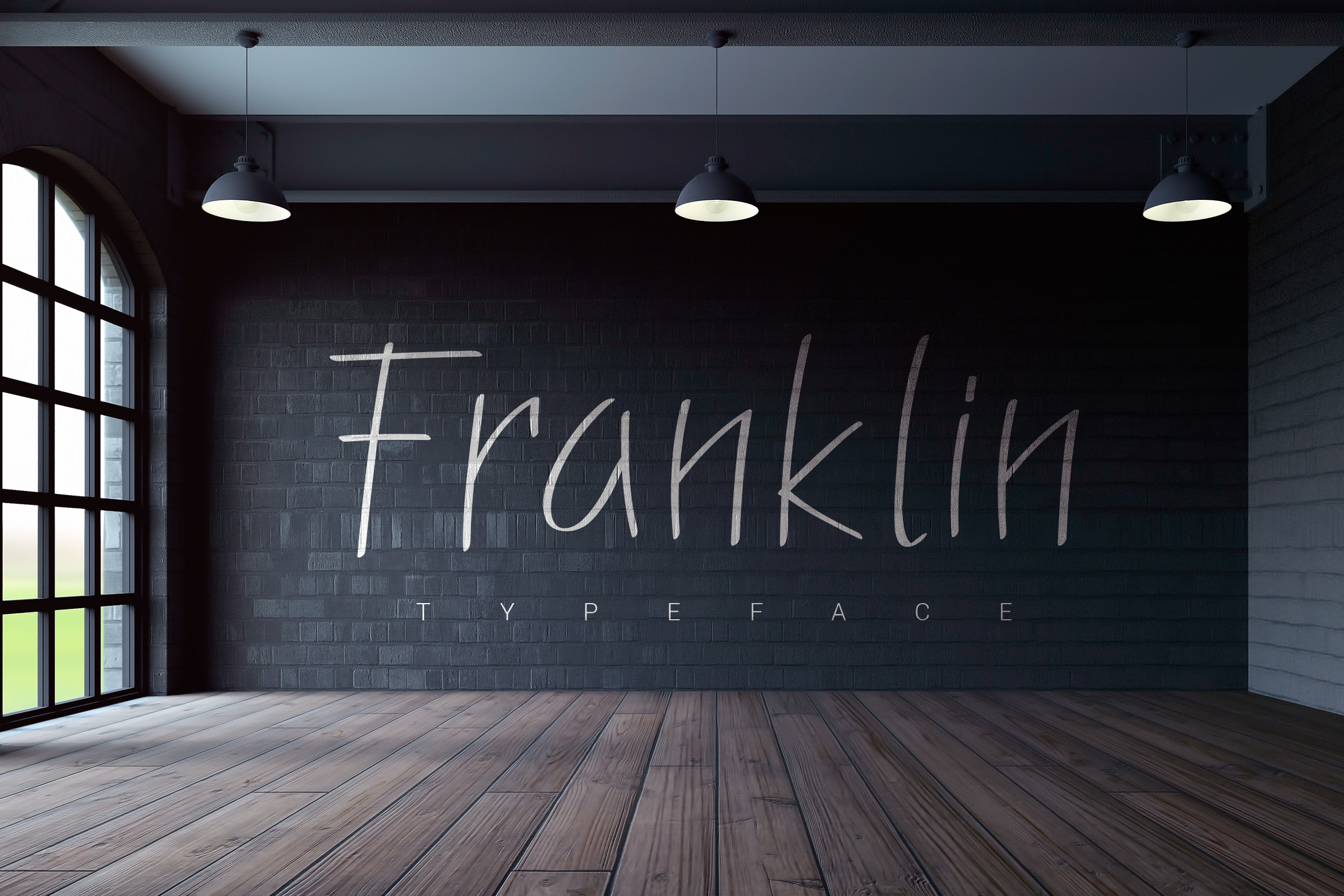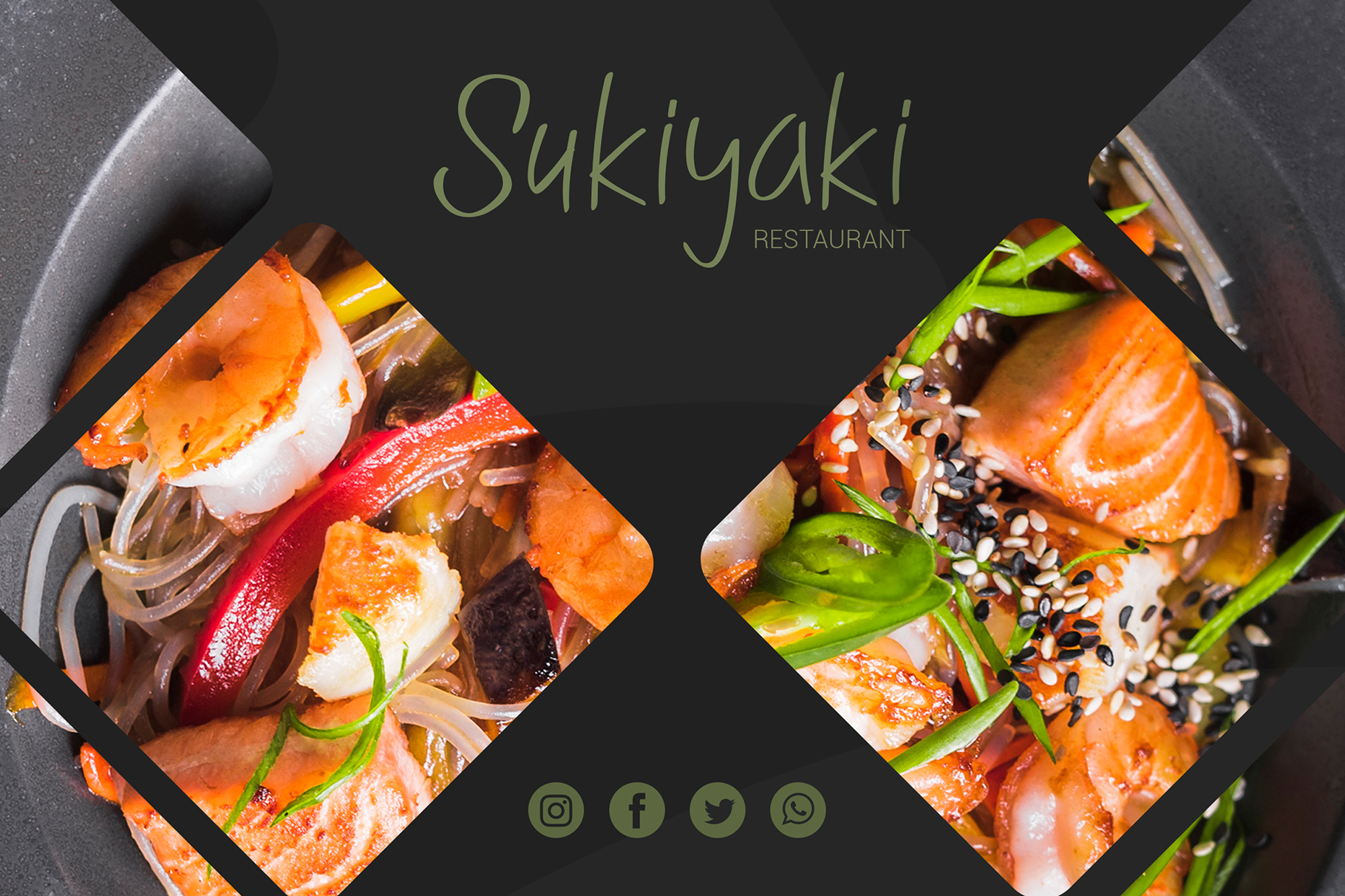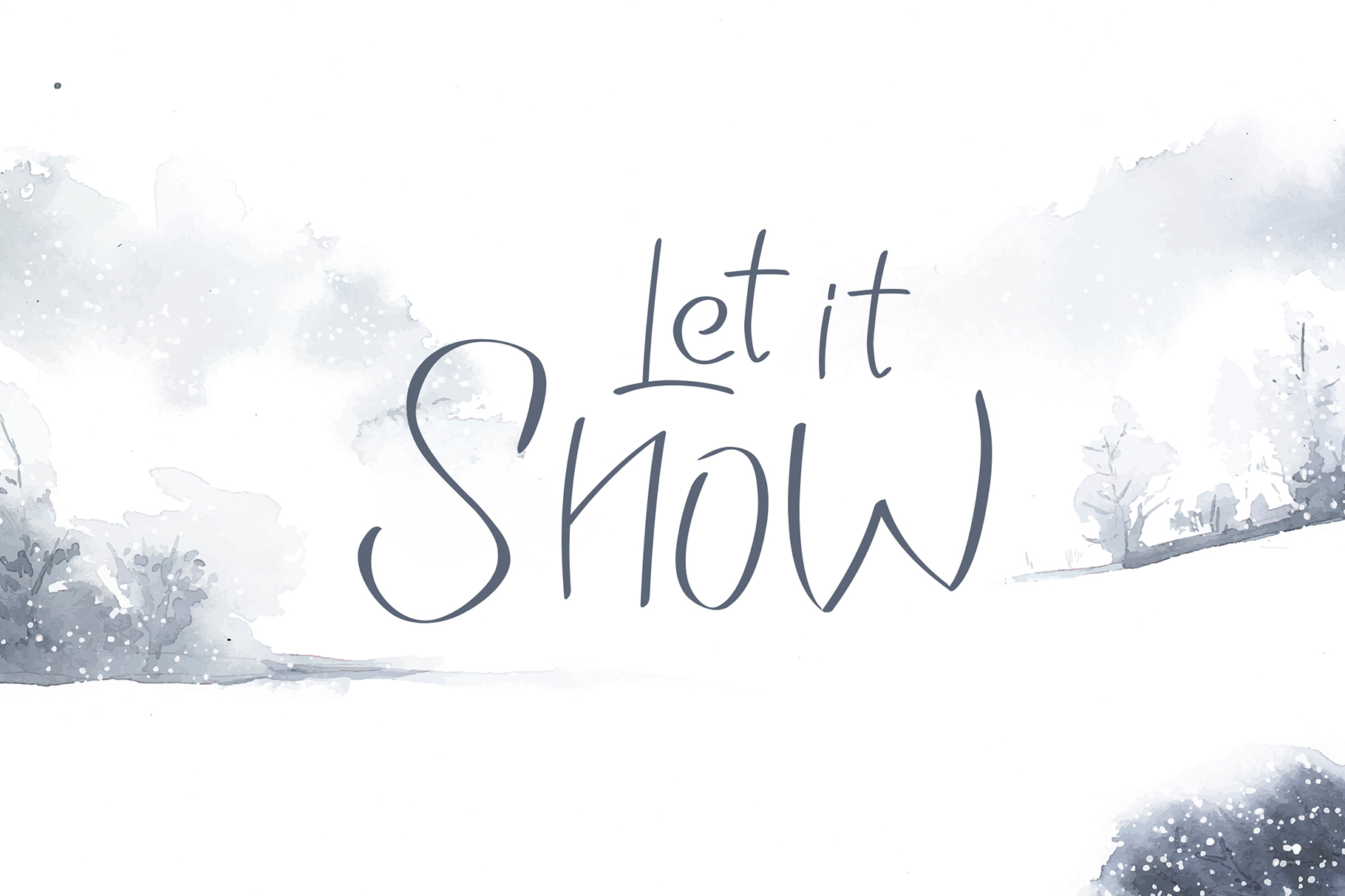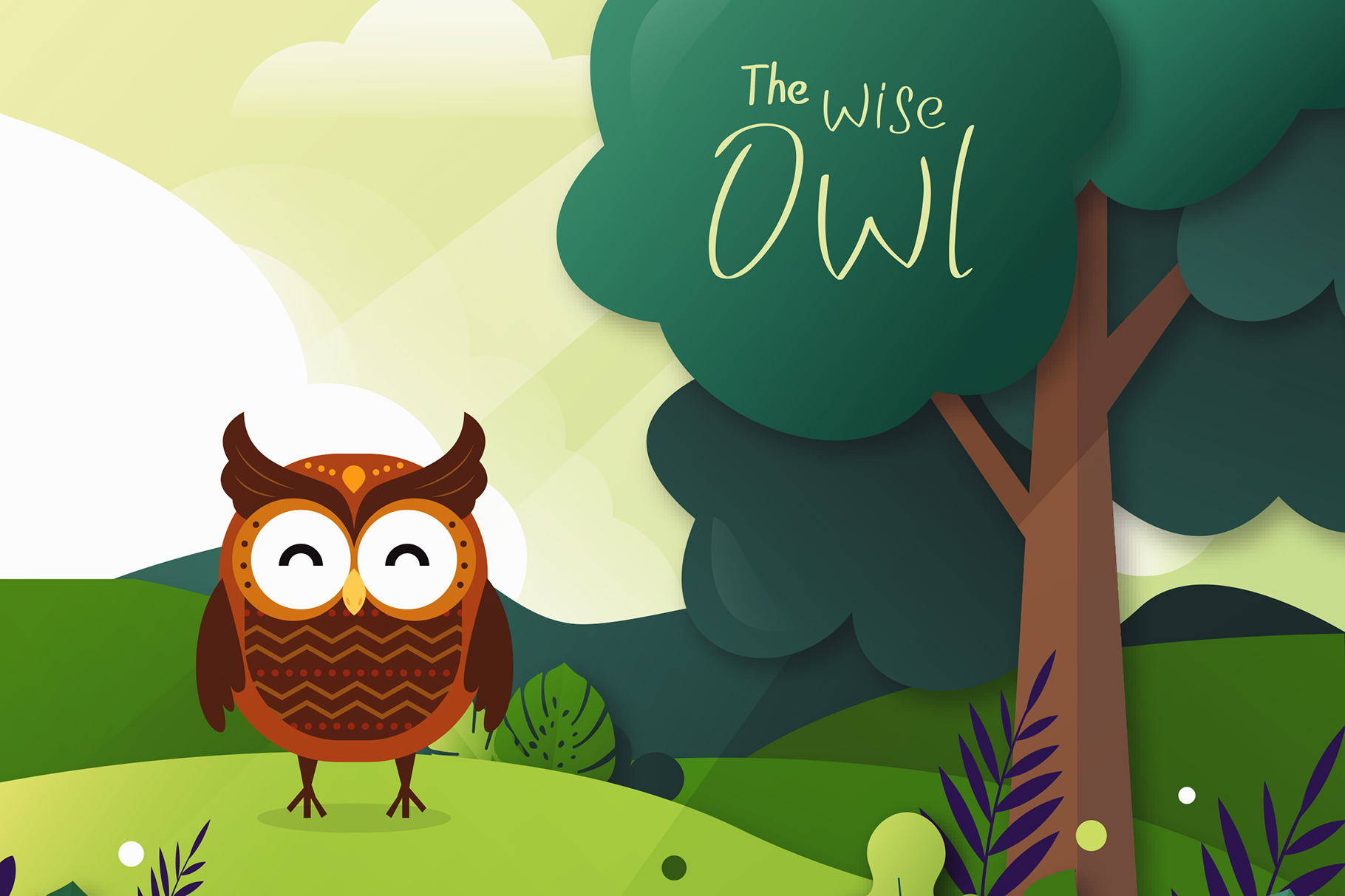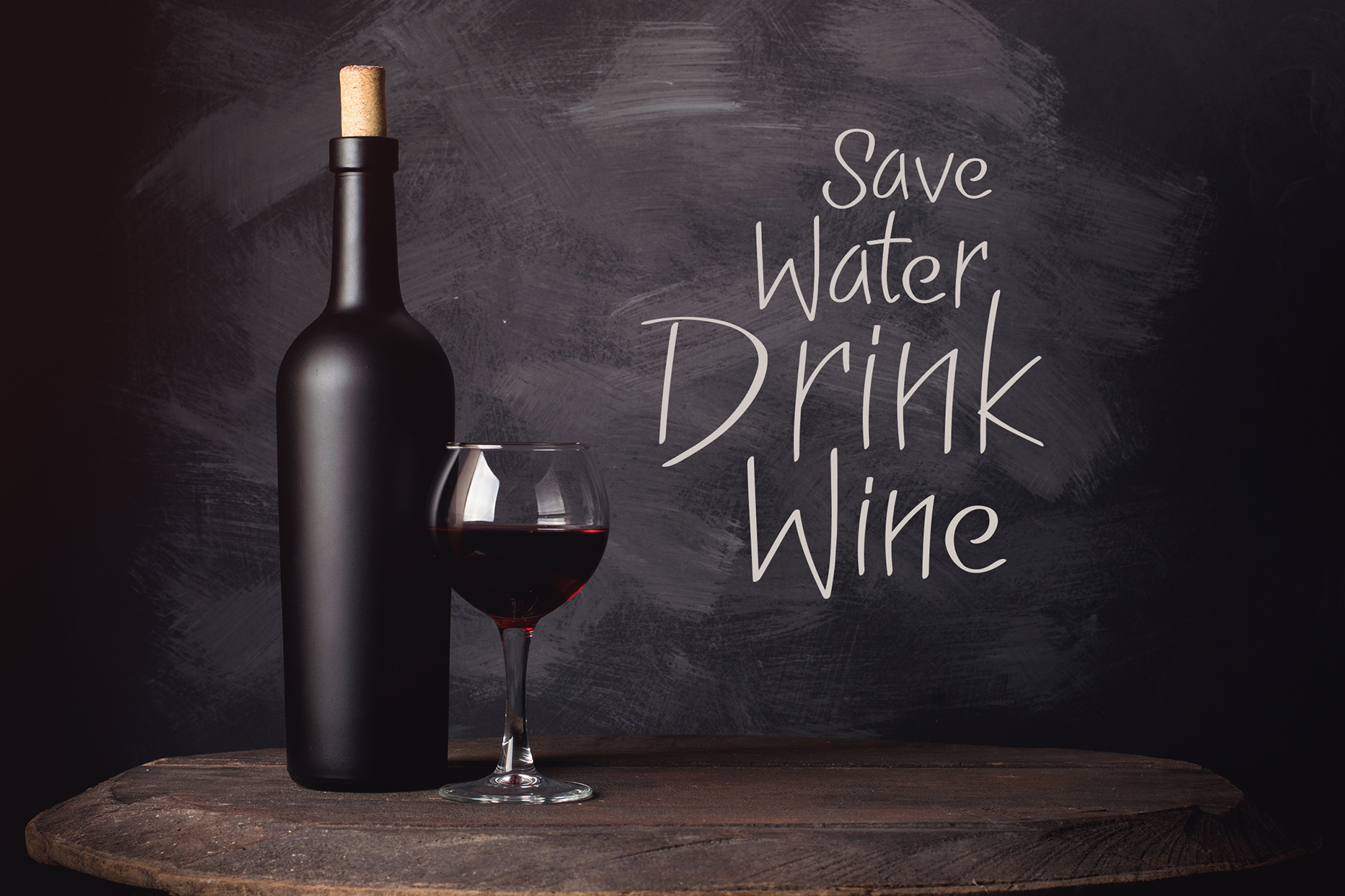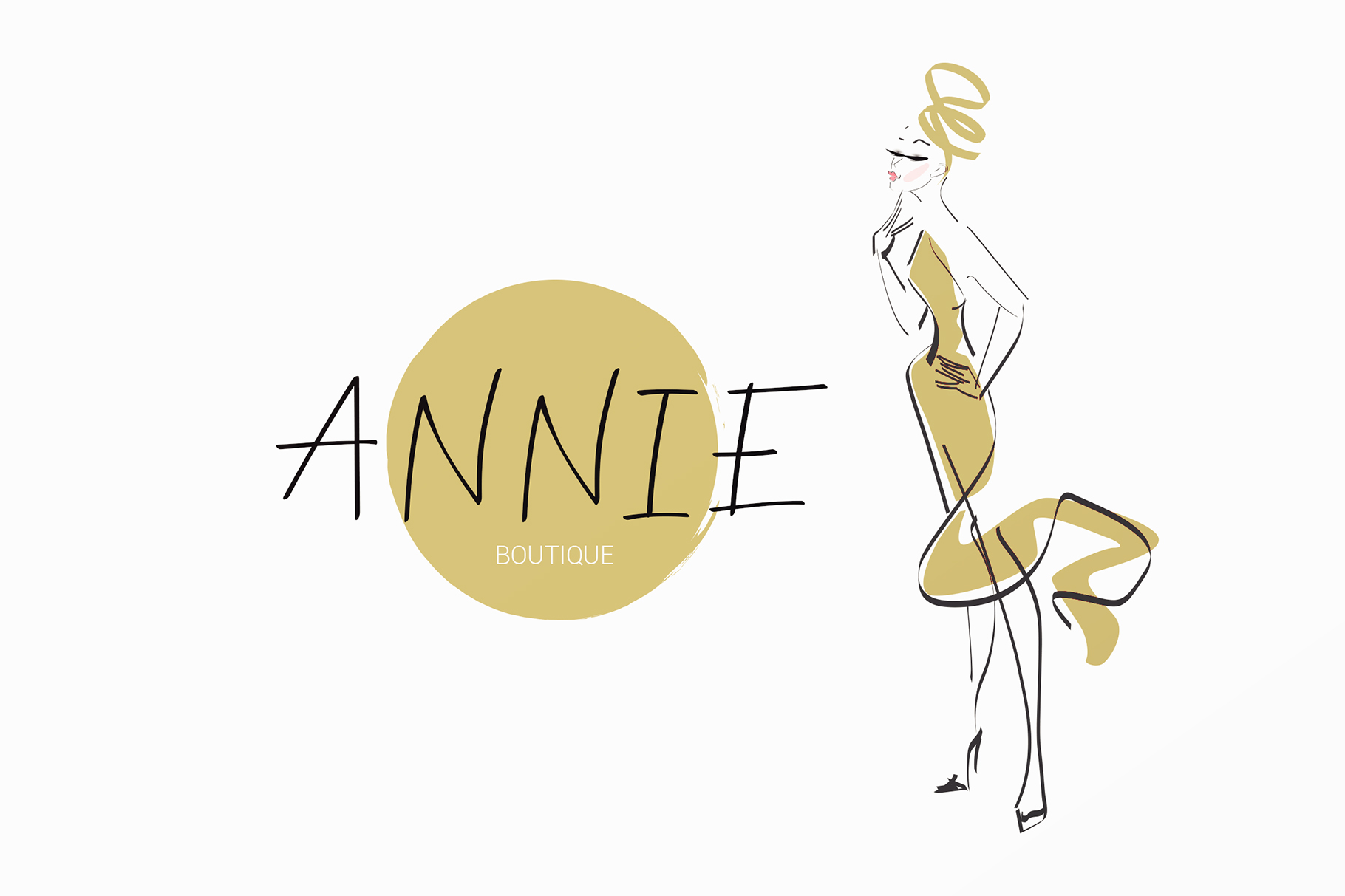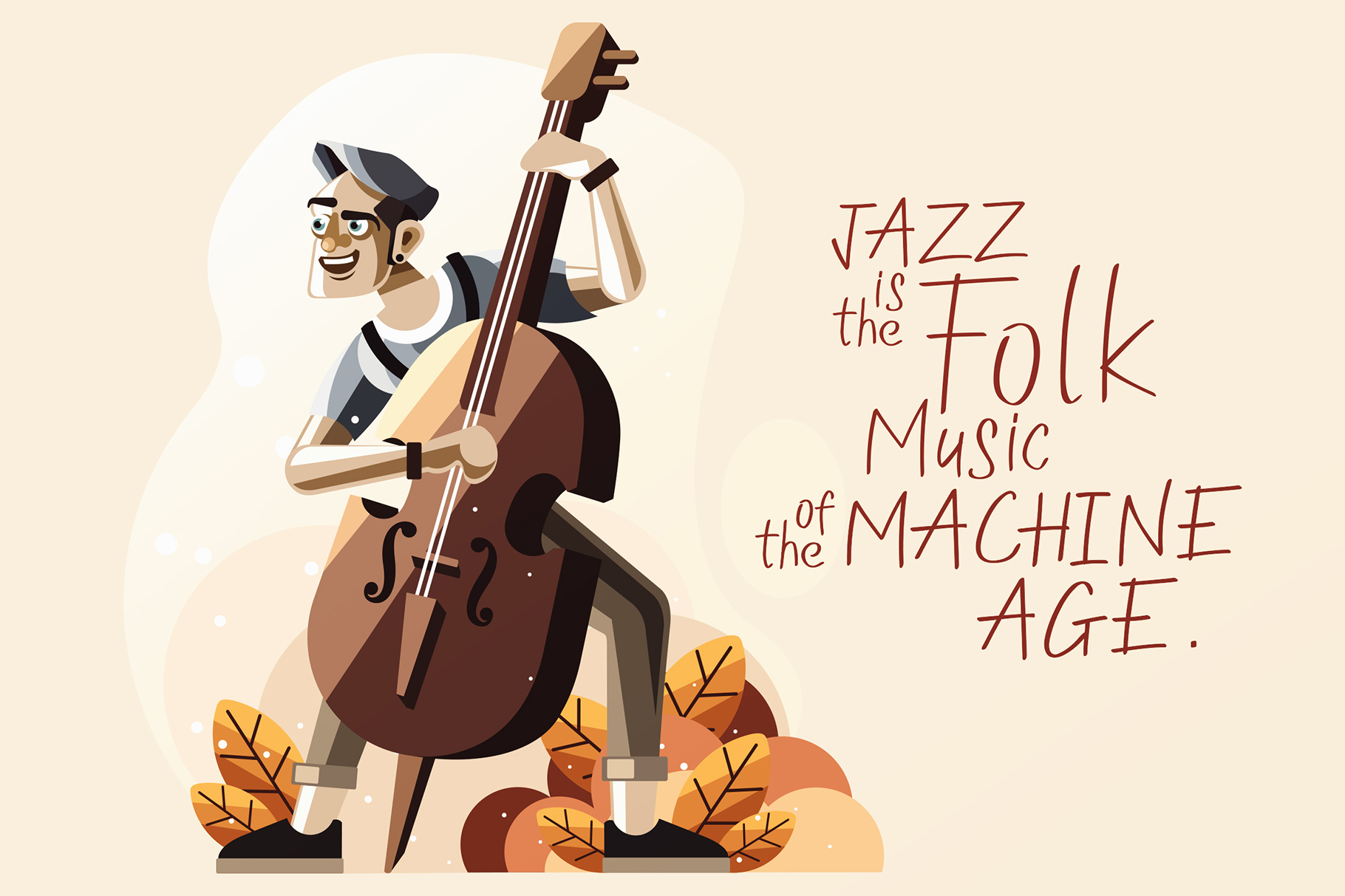
The FRANKLIN FAMILY comes with 3 unique fonts.
This handwritten font has a unique look and feel. If you need to create something out of the ordinary but playful, Franklin is the font you have been looking for.
Franklin